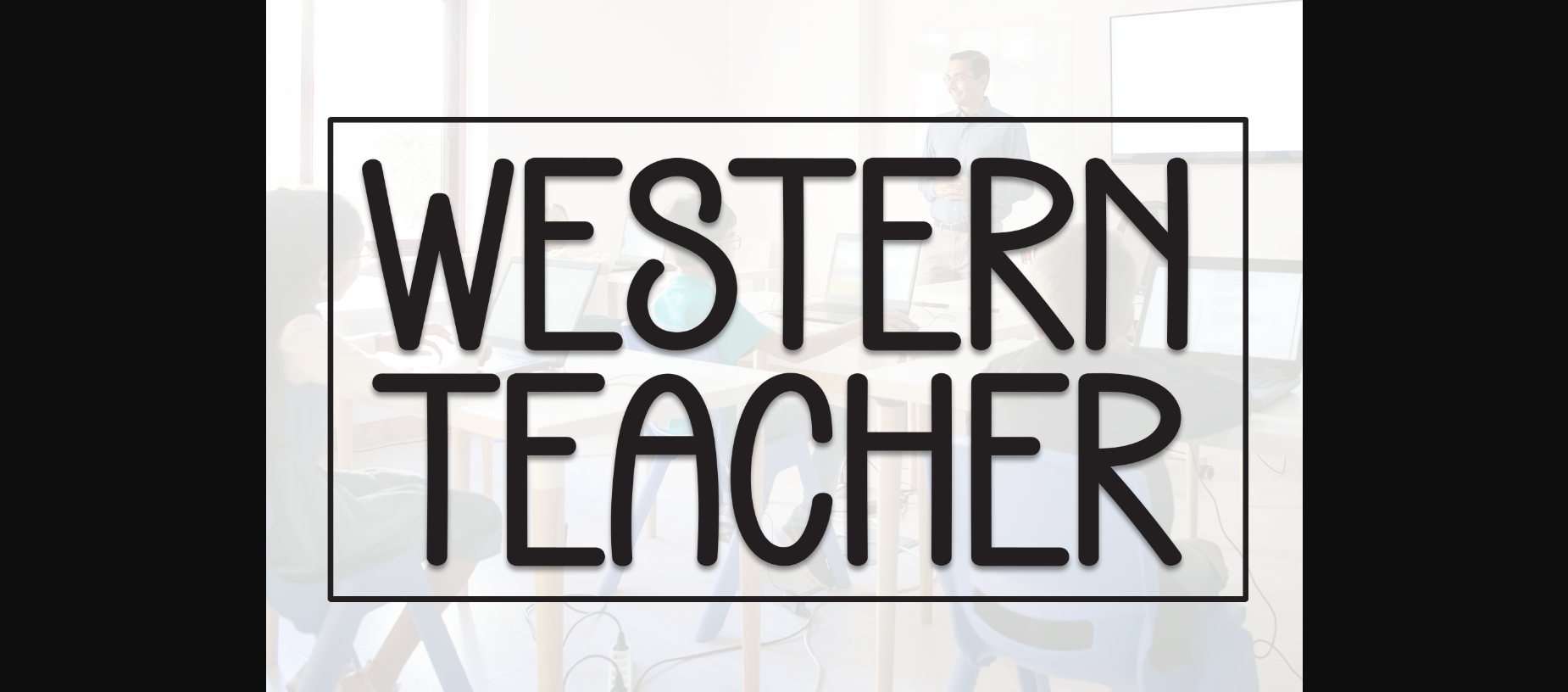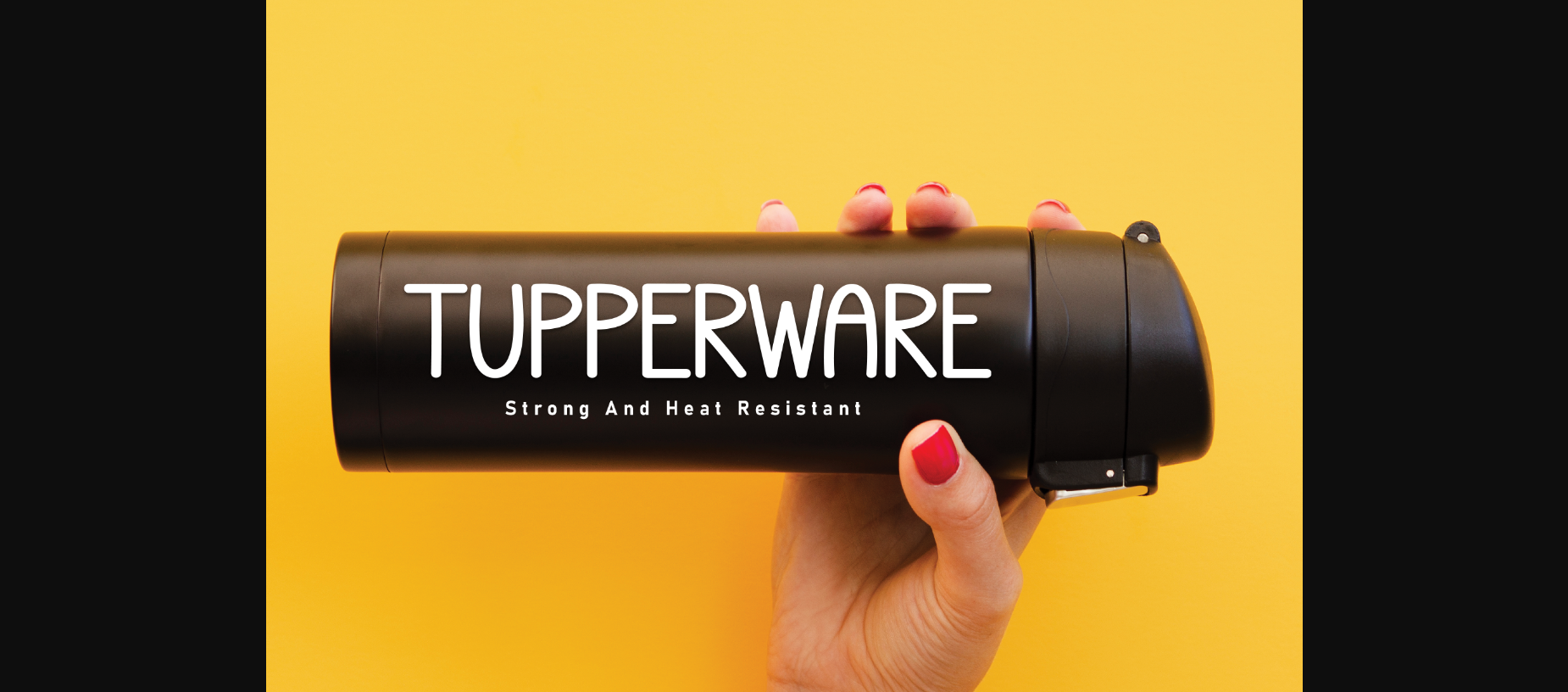
About Western Teacher Font
Western Teacher is a casual sans-serif font with a laid-back vibe and a touch of elegance. Its clean lines and rounded edges give it a friendly appearance, while subtle variations in stroke width add character. Perfect for branding, logos, and editorial designs, this font brings a sense of warmth and approachability.